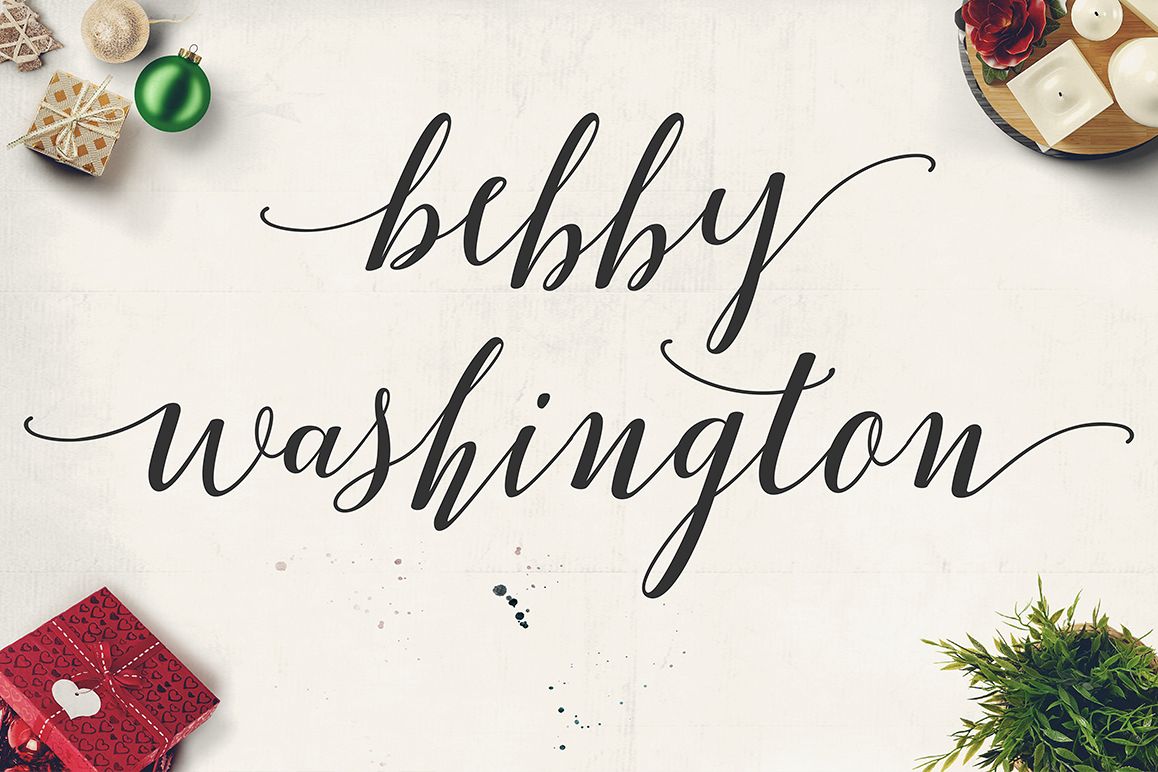
Hi... Introduce Simple Font Bebby Washington with the kind of modern calligraphy and graffiti style appropriate Original my hand, if you are interested in this font, it can be used with ease and simplicity with applications that support your work ...
These fonts match the growing market today, with form cursive typeface for the soft design style, you can mix with fun and feminine shades. Trendy and a wonderful way to highlight your best party celebration, as supporters such as wedding invitations, parties, graduations, birthdays, gatherings, and other ...